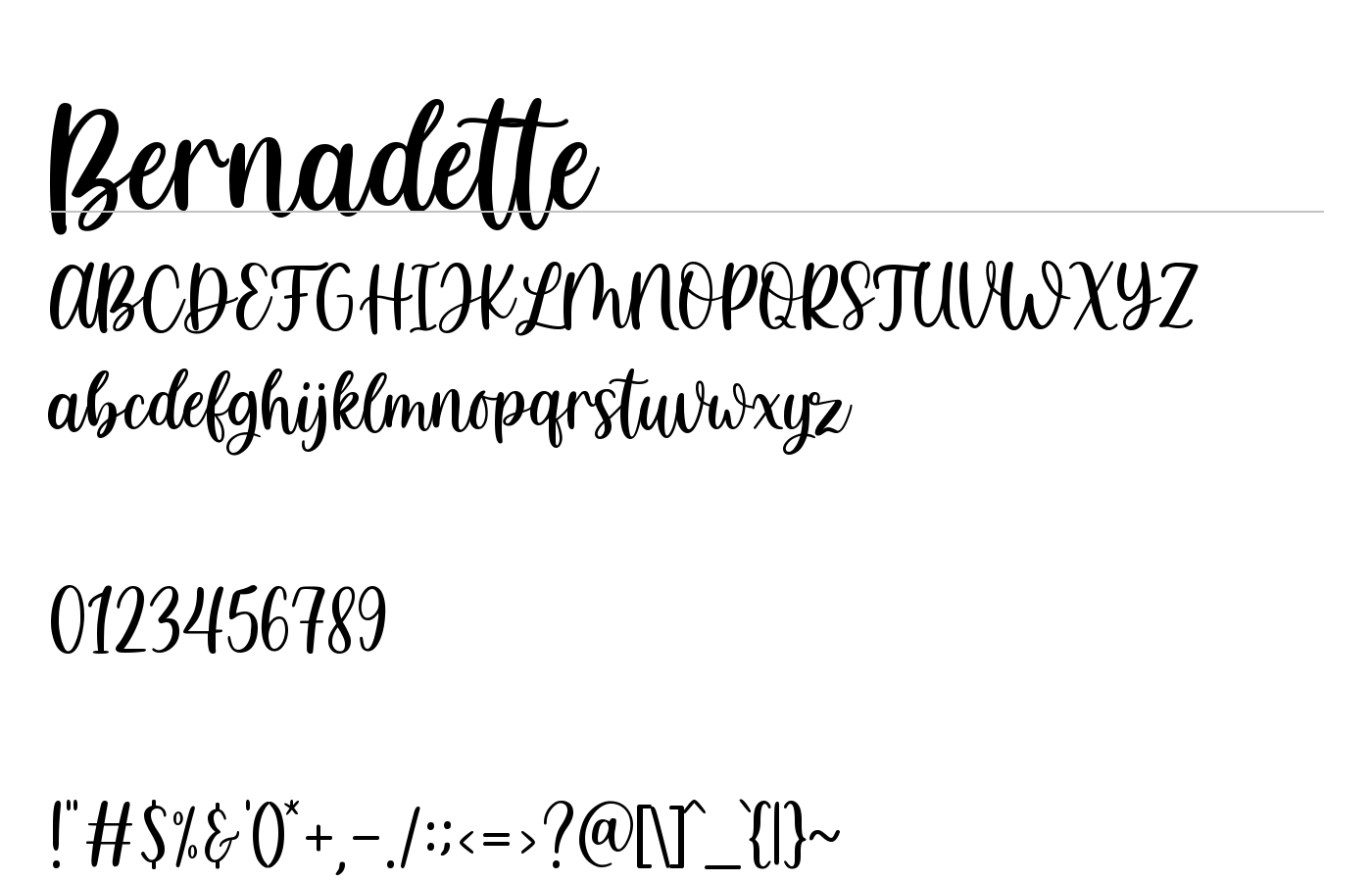
Bernadette is a charming and lively script font with a casual yet elegant flair, featuring smooth, fluid strokes and natural, handwritten letterforms. Its medium weight and moderate x-height create a balanced, readable design that's ideal for branding, invitations, and creative projects seeking a personal and friendly touch. This font shines in contexts where a warm, inviting, and artistic expression is desired, such as logos, greeting cards, and social media graphics.
Bernadette Font
About Bernadette Font
| Font family | Bernadette Font |